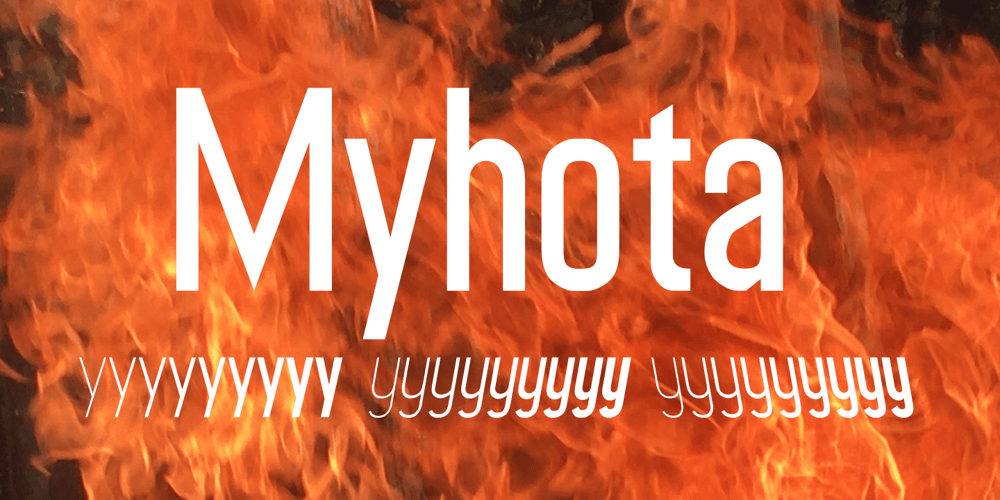
Myhota
Myhota font
Myhota Font Family was designed by Robert Schenk and published by Ingrimayne Type. Myhota contains 30 styles and family package options. Myhota is a condensed sans-serif face that has a bit of rawness to it. It is condensed and has a very high x-height, so it more useful for display than text. Myhota-Bold and Myhota-Light were designed in 1990 and the other seven weights were added in 2021 as were the italic and backslanted styles. There is rarely a use for backslanted type, but when it is needed, Myhota provides an option. Myhota-Hatched was an attempt to see if a readable text font could be hatched out of Myhota by lowering the x-height and widening the letters. The result is a face with rather squarish letters. The regular and bold were original styles with the medium and italic styles added in 2021.